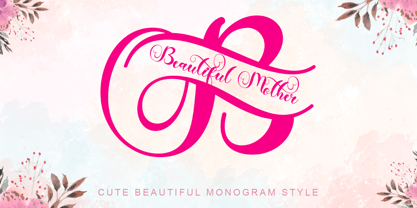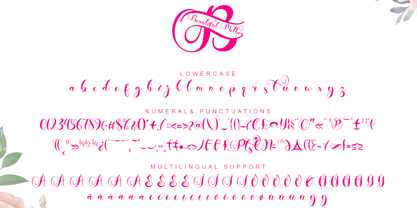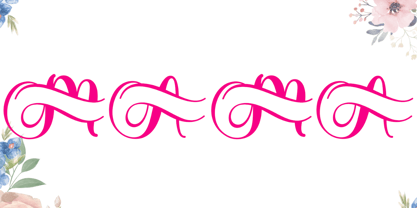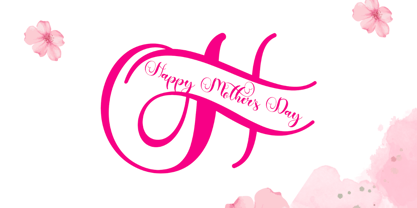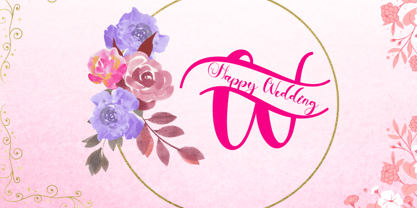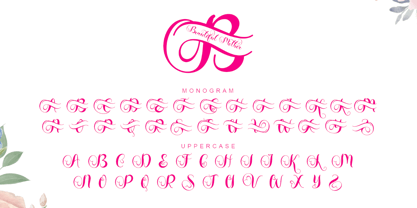
Beautiful Mother Monogram
by Yoga Letter
The Beautiful Mother Monogram Font Family was designed by Isroni Yoga Prasetya and published by Yoga Letter. Beautiful Mother Monogram contains 2 styles and family package options. More about this family
"Beautiful Mother Monogram" is a beautiful and unique monogram font. This font is equipped with monograms, uppercase, lowercase, numerals, punctuations and multilingual support. Very suitable for weddings, invitations, mother's day, christmas, spring, summer and others.
Designers: Isroni Yoga Prasetya
Foundry: Yoga Letter